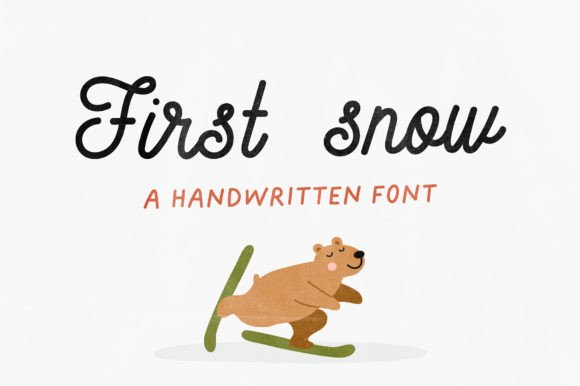
Welcome to the world of First Snow Font, a playful and radiant handwritten font that captivates hearts with its cheerful charm. Immerse yourself in the world of Julia_Volkova's creation and discover a font that transforms your designs into delightful expressions of joy.
With its effortless flow and easy-going nature, First Snow Font dances across your screens, leaving a trail of smiles in its wake. This font is not just a collection of letters; it's a gateway to a world where creativity knows no bounds. Whether you're a seasoned designer or just starting, First Snow Font is your perfect companion, guiding you through the realm of enchanting designs.
Picture this: you're working on a heartfelt greeting card for a loved one. The words dance on the page, each letter a stroke of warmth and affection. First Snow Font becomes a vessel for your emotions, carrying your heartfelt messages with grace and elegance. The recipient's eyes follow the curves and flourishes, feeling the love and care you've poured into every word.
Or perhaps you're crafting a whimsical poster for an upcoming event. First Snow Font becomes your magic wand, transforming ordinary words into captivating invitations. Its vibrant energy captures attention, drawing people in with its playful spirit. The font dances across the poster, promising an experience filled with laughter and joy.
First Snow Font is more than just a font; it's an emotion, a feeling, a story waiting to be told. With every use, it breathes life into your creations, adding a touch of magic that captivates and enchants. Embrace the beauty of handwritten charm and let First Snow Font elevate your designs to new heights.